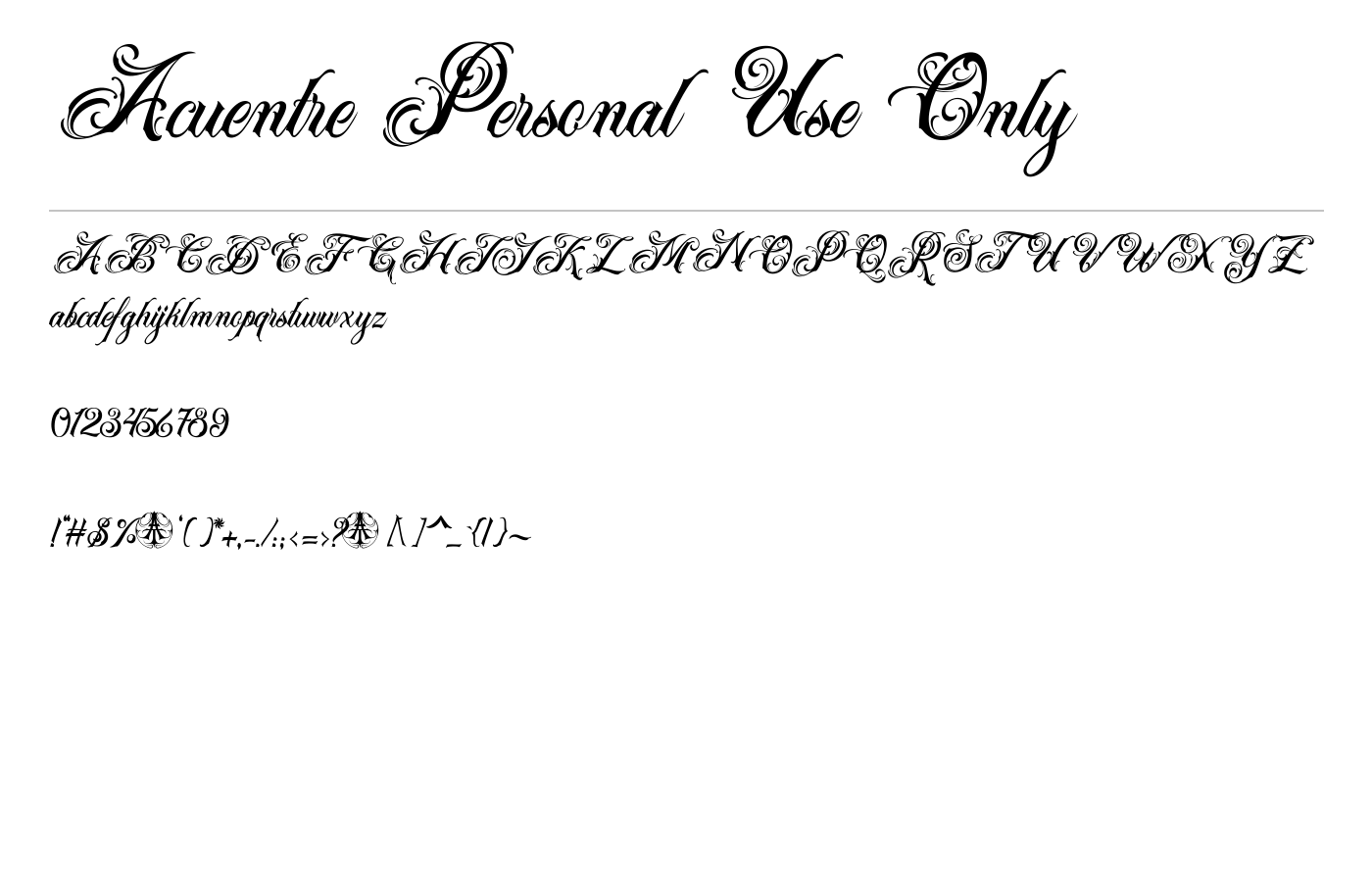
Acuentre Personal Use Only is an ornate script font characterized by elegant, flowing letterforms with intricate swirls and flourishes, especially in its uppercase characters. Its delicate strokes and high contrast between thick and thin lines give it a sophisticated, vintage feel, making it perfect for decorative use in invitations, luxury branding, and formal event designs where a touch of classic elegance is desired. This font excels in large display settings, bringing a refined and artistic personality to headlines or logos.
Acuentre Personal Use Only Font
About Acuentre Personal Use Only Font